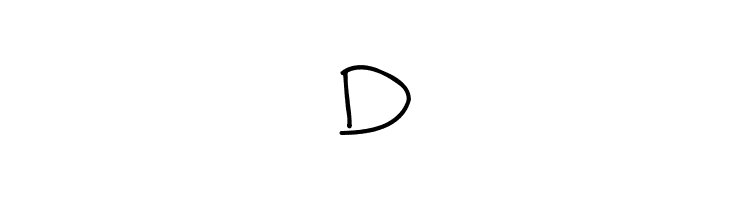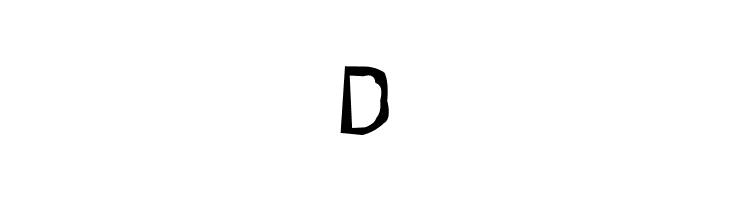
A bold, playful font with whimsical lowercase letters and thick strokes.
A bold, textured typeface with a playful, hairy design.
A bold, rounded font with a playful and approachable design.
A lively and flowing script font with smooth, cursive strokes.
A decorative font with an embroidered, cross-stitched style.
Elegant handwritten script font.
A playful, bold script font with a handwritten style and smooth, rounded characters.
A bold, textured font with a distressed, artistic style.
A bold, decorative font with a double-outline effect and high contrast.
A futuristic, geometric font with rounded edges and a bold appearance.
A bold, Art Deco-inspired font with geometric shapes and strong vertical lines.
An elegant script font with flowing lines and intricate swashes.
A bold, hand-drawn font with a rugged, distressed look.
A bold, geometric font with a modern and structured design.